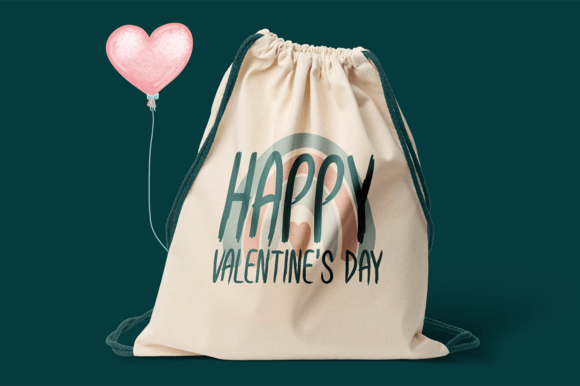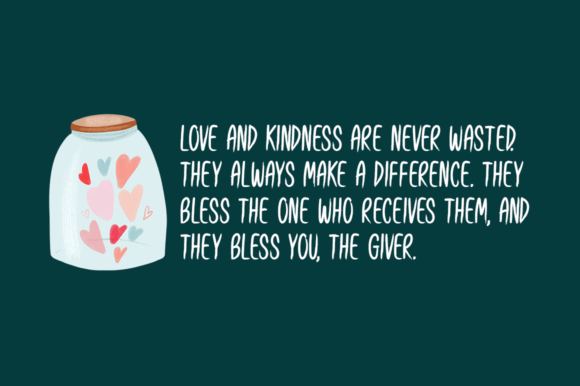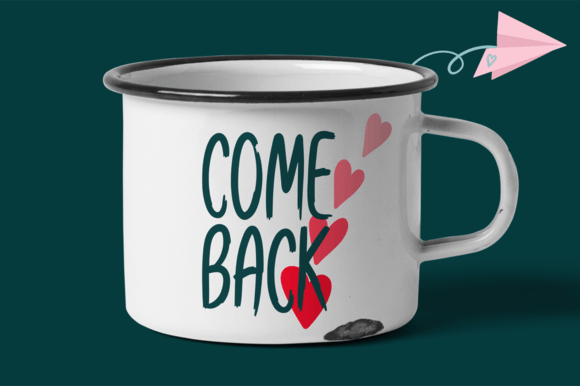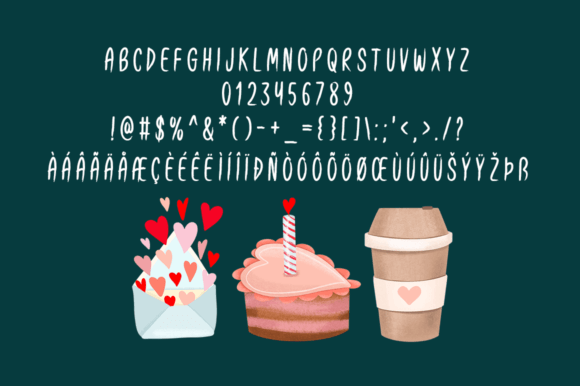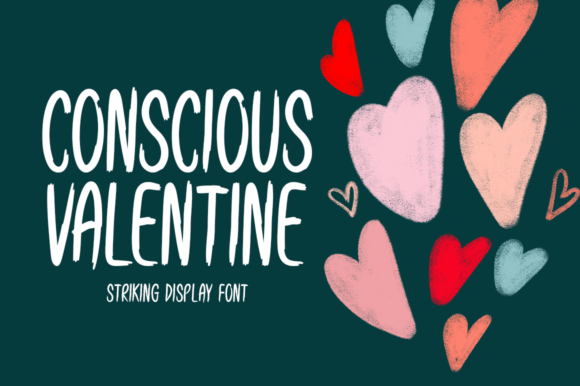
Introducing Conscious Valentine: The Perfect Brushed Display Font for Your Creative Projects
Are you a designer, crafty enthusiast, or simply someone who loves to add a personal touch to their creations? Look no further! We’re excited to introduce Conscious Valentine, a brand new, brushed display font that’s perfect for a wide range of creative projects. In this article, we’ll dive into the features and benefits of Conscious Valentine, and explore how you can use it to take your designs to the next level.
What is Conscious Valentine?
Conscious Valentine is a unique, hand-crafted font that’s designed to add a touch of elegance and sophistication to your designs. This beautiful brushed display font is perfect for creating stunning visual content, from stationery and logos to t-shirts, paper, and print design. With its distinctive, hand-brushed look, Conscious Valentine is sure to make your designs stand out from the crowd.
Key Features of Conscious Valentine
So, what makes Conscious Valentine so special? Here are just a few of its key features:
- Brushed display font: Conscious Valentine has a unique, hand-brushed look that’s perfect for creating eye-catching designs.
- High-quality design: This font is carefully crafted to ensure that it’s clear, legible, and visually appealing.
- Versatile: Conscious Valentine can be used for a wide range of creative projects, from stationery and logos to t-shirts, paper, and print design.
- Easily customizable: With Conscious Valentine, you can easily adjust the font size, color, and style to suit your design needs.
Use Cases for Conscious Valentine
So, what can you use Conscious Valentine for? The possibilities are endless! Here are just a few ideas to get you started:
- Stationery: Create beautiful, personalized stationery that’s perfect for letters, cards, and invitations.
- Logos: Use Conscious Valentine to create a unique, eye-catching logo for your business or brand.
- T-shirts and apparel: Design stunning t-shirts, hoodies, and other apparel with Conscious Valentine.
- Paper and print design: Create beautiful paper crafts, such as cards, gift tags, and scrapbook pages.
- Website headers: Use Conscious Valentine to create stunning website headers that grab attention.
- Photo frames and flyers: Design beautiful photo frames and flyers that showcase your favorite memories.
- Music covers and posters: Create eye-catching music covers and posters with Conscious Valentine.
- Image sliders and more: Use Conscious Valentine to create stunning image sliders, social media graphics, and more.
Why Choose Conscious Valentine?
So, why should you choose Conscious Valentine for your creative projects? Here are just a few reasons:
- Unique and eye-catching: Conscious Valentine has a distinctive, hand-brushed look that’s sure to make your designs stand out.
- High-quality design: This font is carefully crafted to ensure that it’s clear, legible, and visually appealing.
- Versatile: Conscious Valentine can be used for a wide range of creative projects.
- Easily customizable: With Conscious Valentine, you can easily adjust the font size, color, and style to suit your design needs.
In conclusion, Conscious Valentine is a beautiful, versatile font that’s perfect for designers, crafty enthusiasts, and anyone who loves to add a personal touch to their creations. With its unique, hand-brushed look and high-quality design, Conscious Valentine is sure to take your designs to the next level. So why wait? Download Conscious Valentine today and start creating stunning visual content that showcases your creativity and style!
Whether you’re a seasoned designer or just starting out, Conscious Valentine is the perfect addition to your font collection. So go ahead, get creative, and show the world what you’re working with!